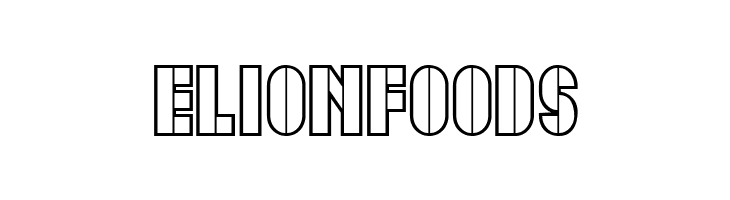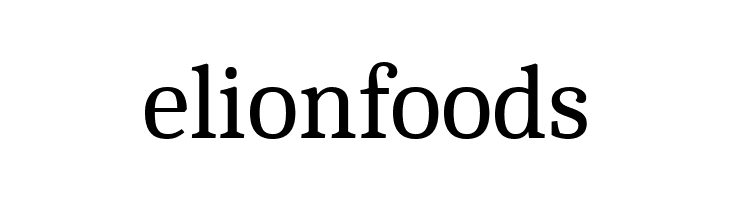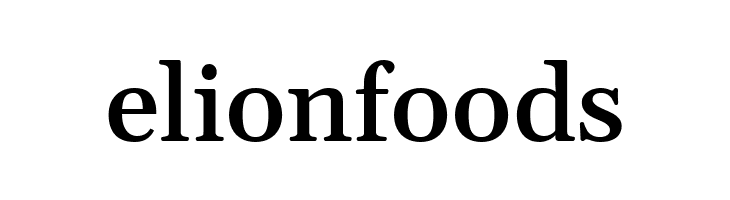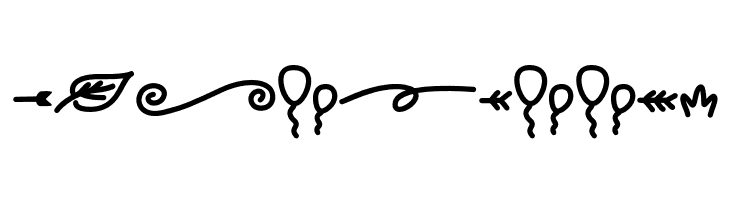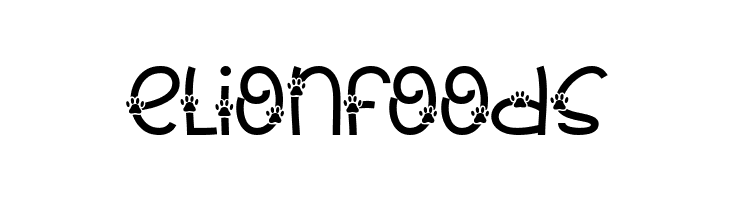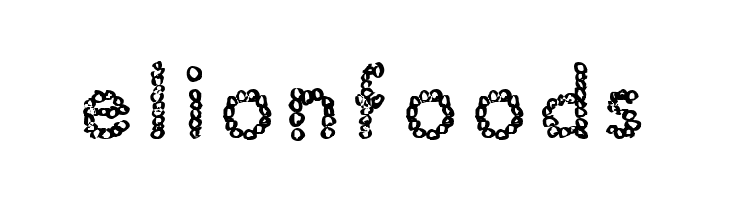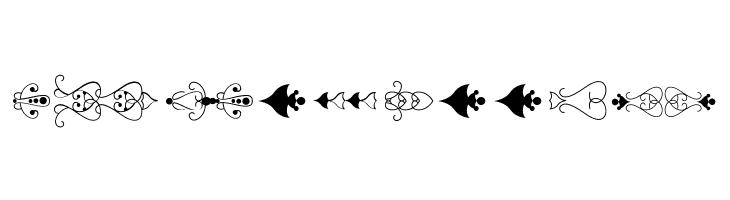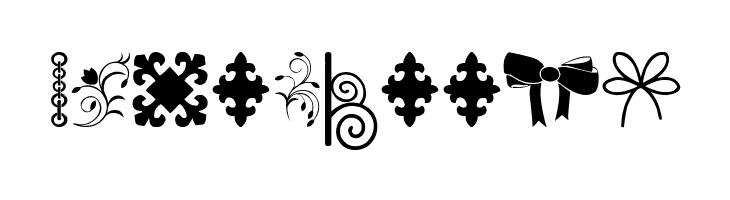
A bold, hollow, geometric font with a modern and industrial style.
A playful, bold font with rounded, bubbly characters perfect for fun designs.
A classic serif typeface with balanced proportions and slight stroke variations for enhanced readability.
A classic serif font with medium weight and refined serifs, offering elegance and readability.
Hand-drawn decorative border and motif dingbats.
A playful font with paw print accents, perfect for whimsical and animal-themed designs.
An intricate decorative font with elaborate ornamental designs.
A bold ornamental dingbat collection with floral, geometric, and flourish motifs.